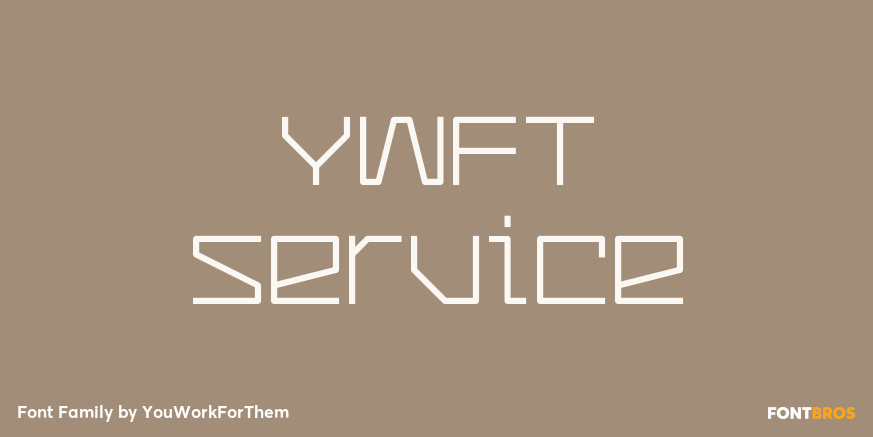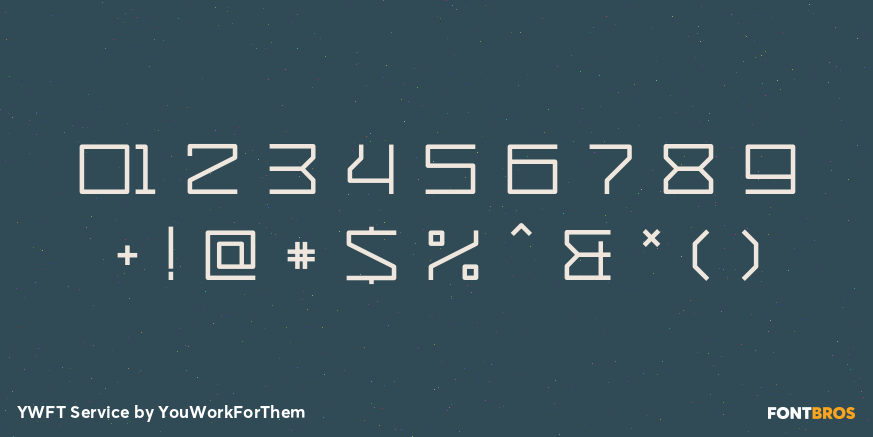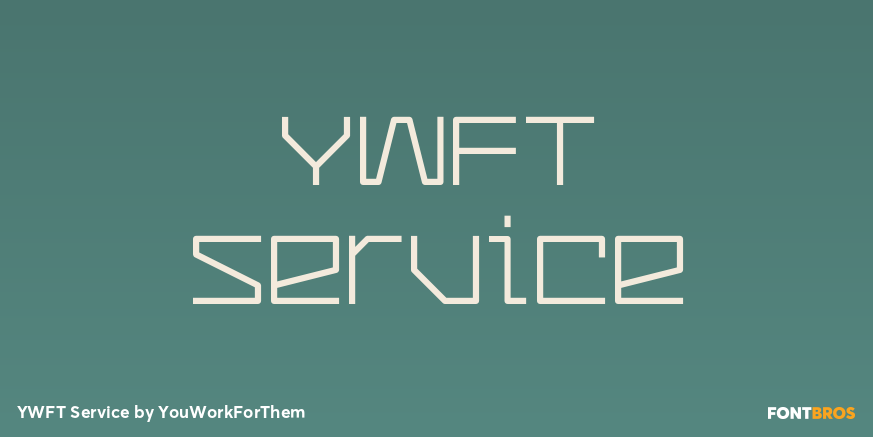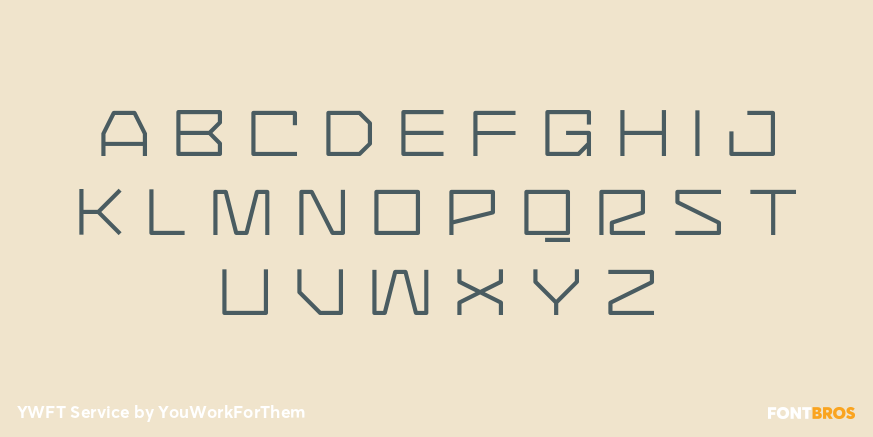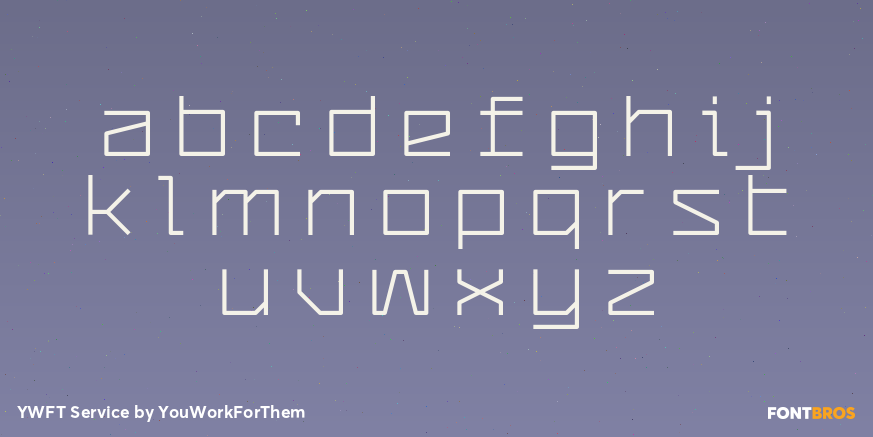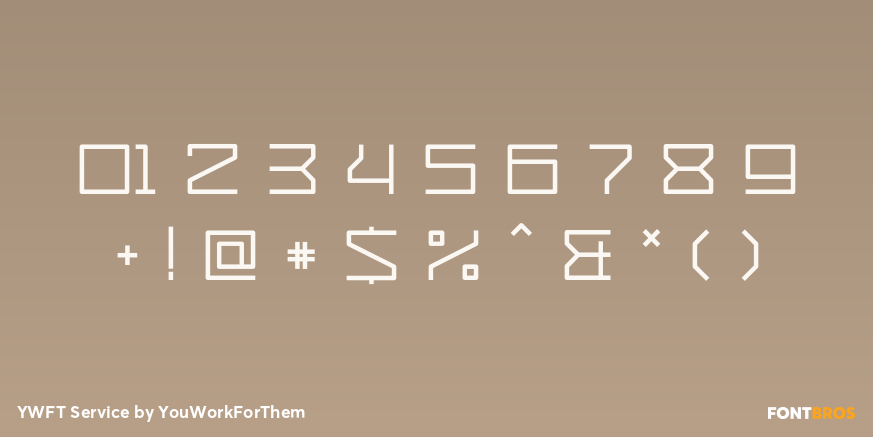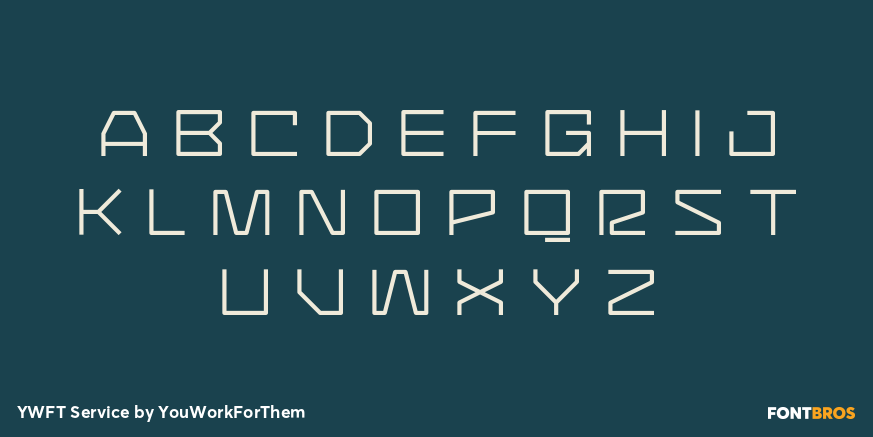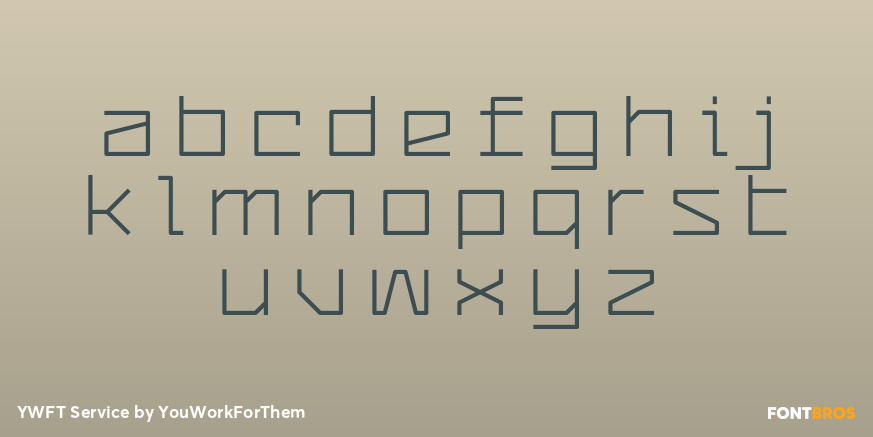
YWFT Service
Font Family by YouWorkForThem
YWFT Service is a display typeface, strongly influenced by electronic music during the late 90s and early 00's. YWFT Service began as custom-drawn lettering on flyers for various music labels and DJs. Despite its underground origins, however, YWFT Service works extremely well during daylight hours as well, particularly in genres such as fashion (Thin) and editorial headlines (Black). It contains seven weight options in all. YWFT Service was converted to Opentype in 2010. Designed exclusively by Michael Cina and YouWorkForThem.